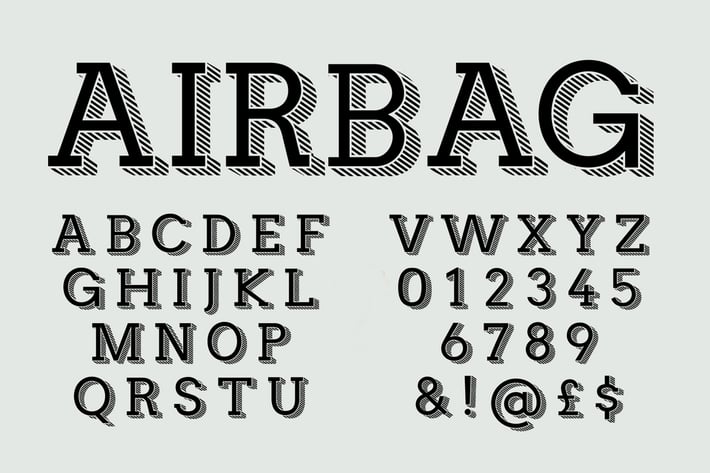
Airbag font
Airbag is a trendy display typeface aimed at achieving a stylish, clean, slab look and feel.
It has over 300 glyphs including uppercase/lowercase letters and numbers, Punctuation, Western and Central European characters in total it has over 380 glyphs.
The typeface works best at large point sizes, it's not really a good web font but looks great in print and on screen.